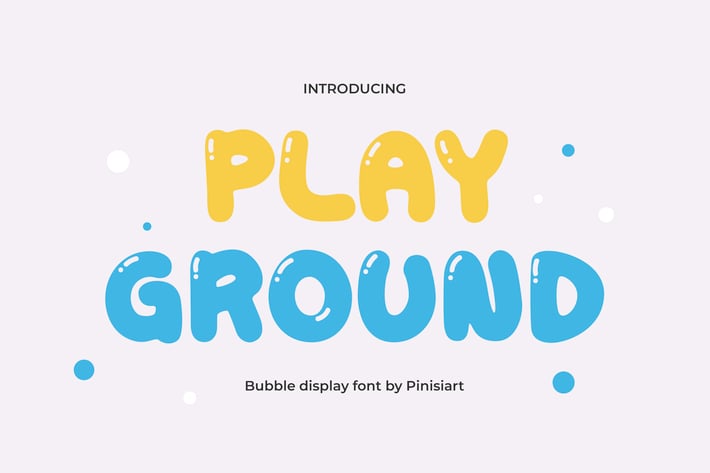
Playground – Playful Kids Font
PLAYGROUND – Playful Kids Font is the perfect font to ignite the imagination and creativity of young minds. Its bubbly and cute design makes it an ideal choice for a range of kid-centric projects. Whether creating content for schools, birthday invitations, children's books, or playful designs, this font adds a touch of whimsy and charm to your work.
With its friendly and approachable style, PLAYGROUND captures the essence of childhood joy and adventure. Let your designs come to life with this adorable font, which is sure to resonate with kids and parents alike. Embrace the playful spirit of PLAYGROUND and watch your creations bloom with laughter and creativity.